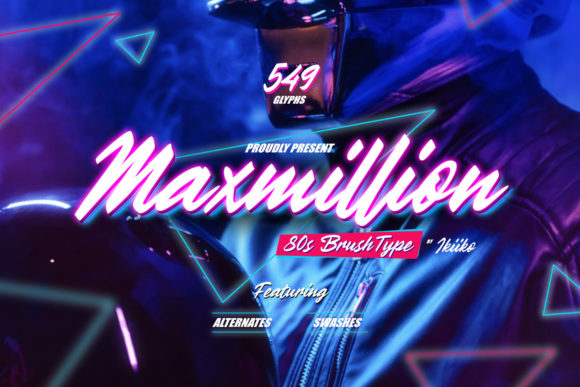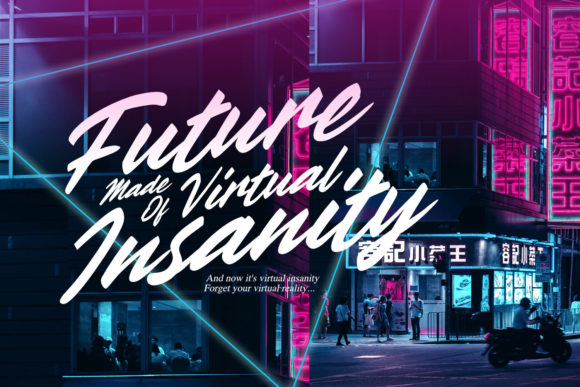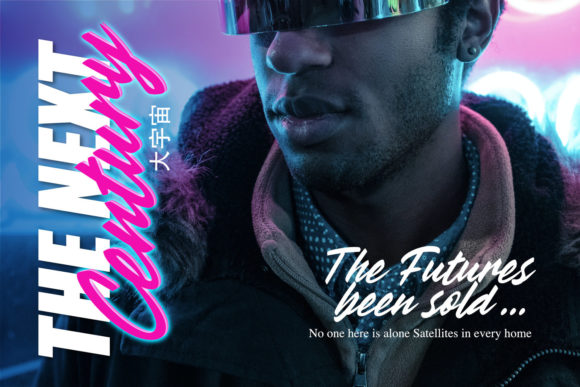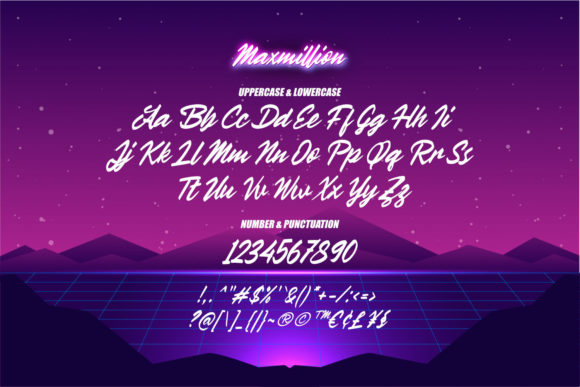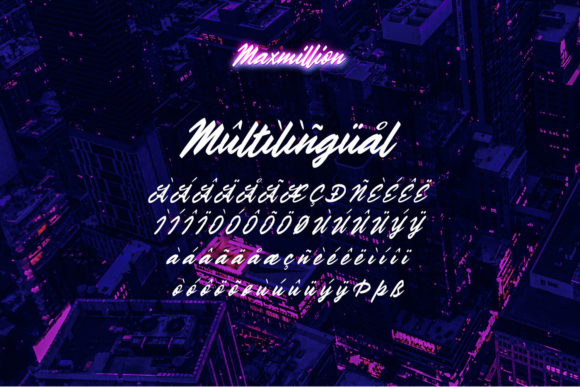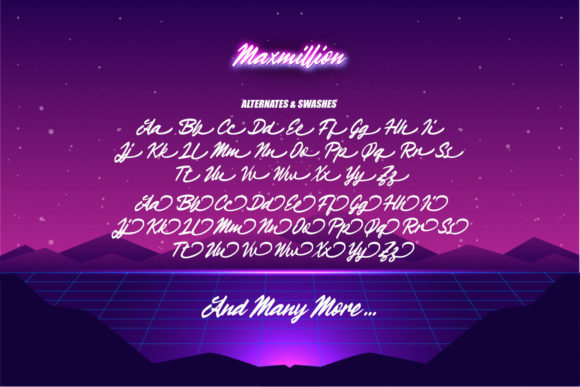
Maxmiliion Font
About Maxmiliion Font
Maxmiliion feels equally charming and elegant. It looks stunning on wedding invitations, thank you cards, quotes, greeting cards, logos, business cards and every other design which needs a handwritten touch.